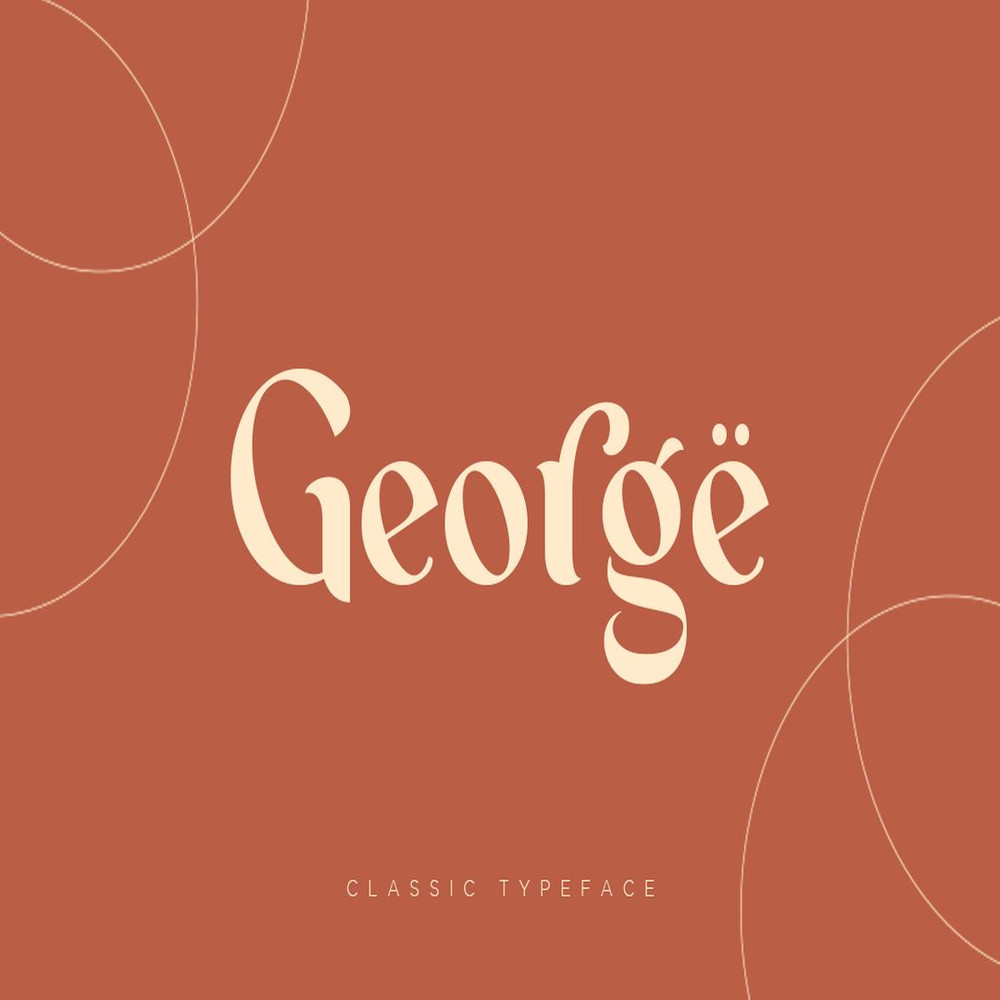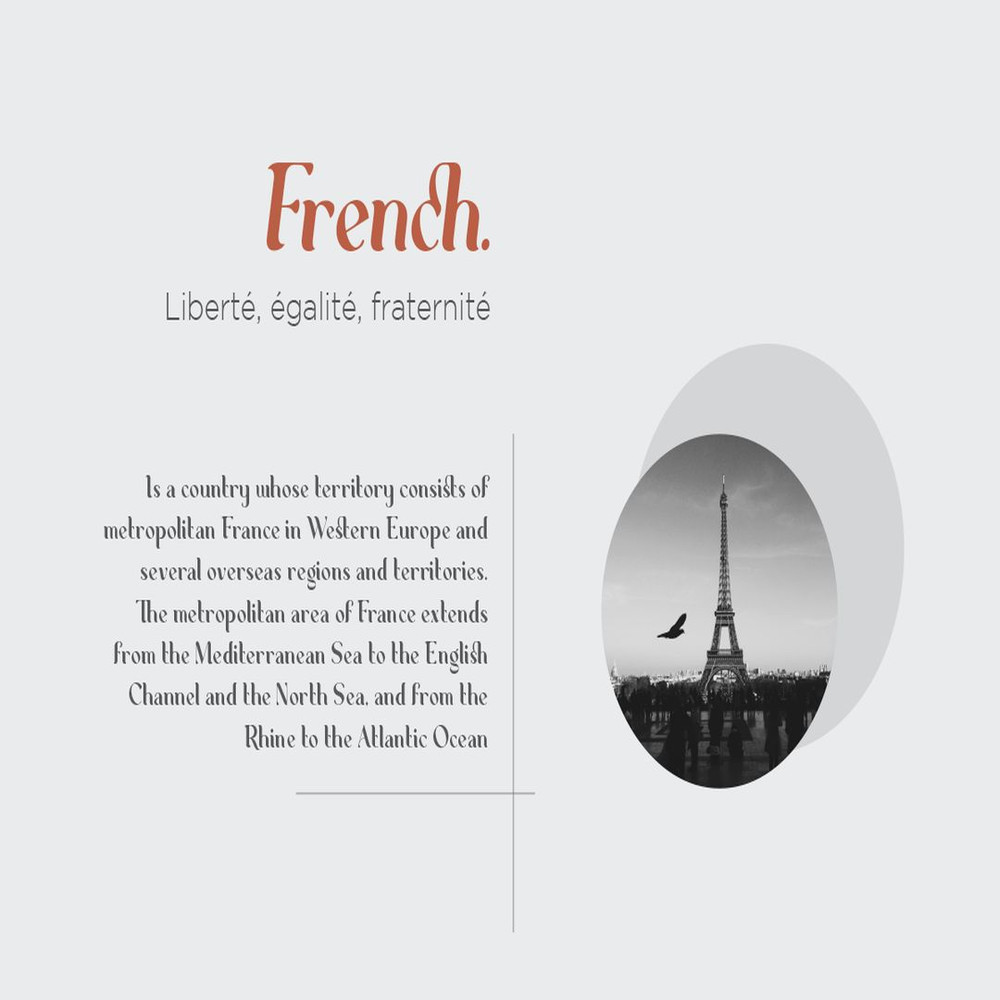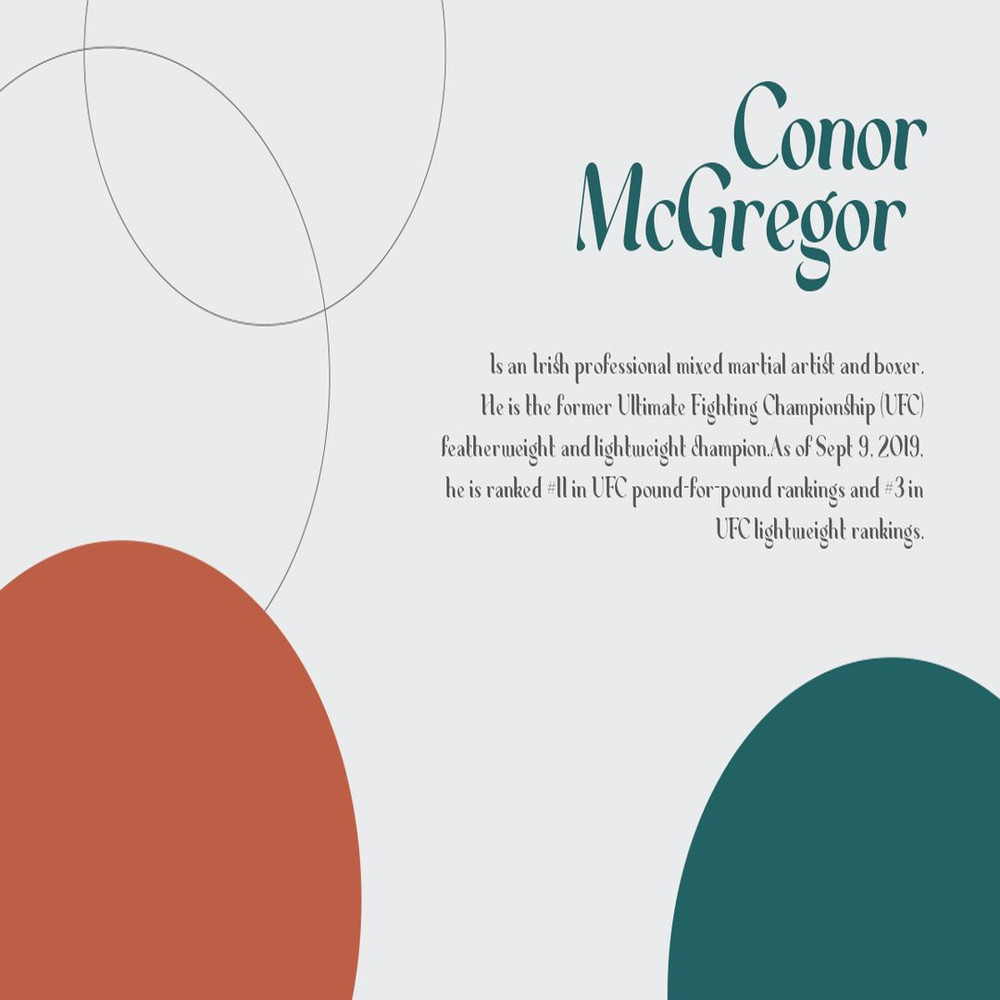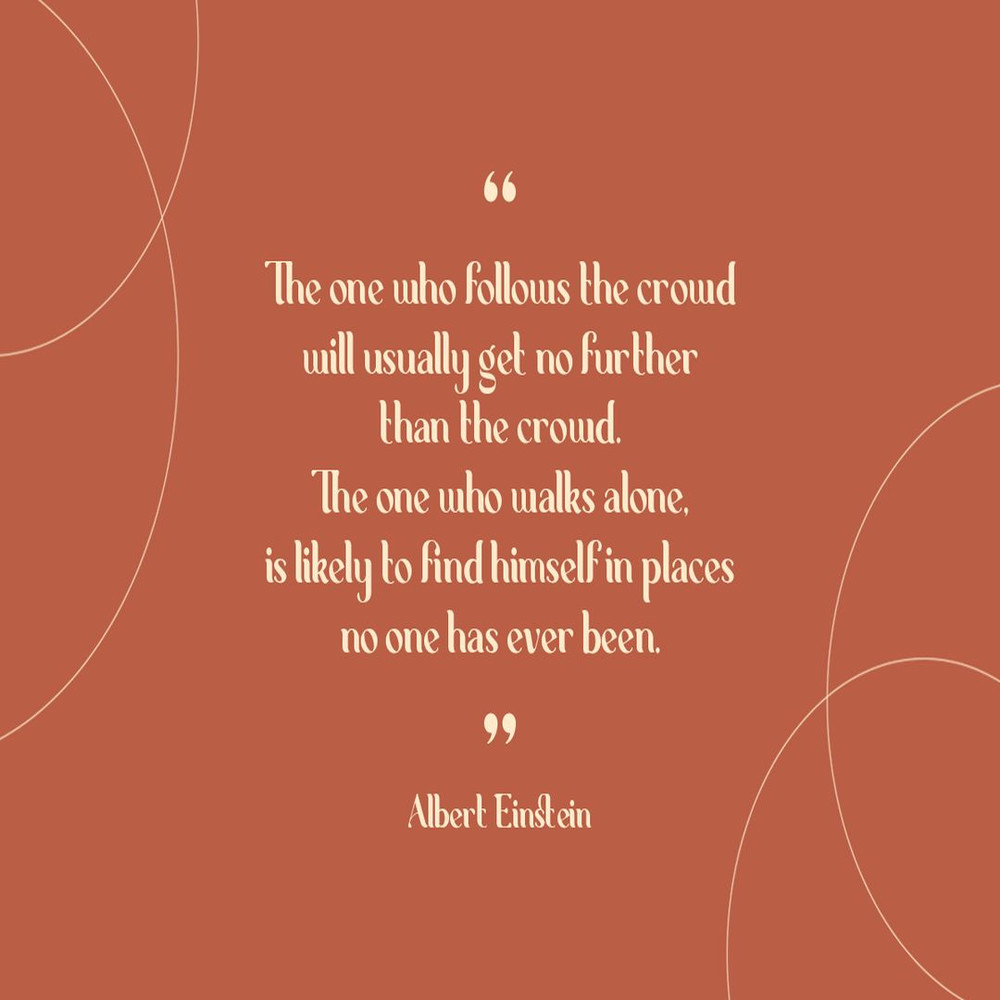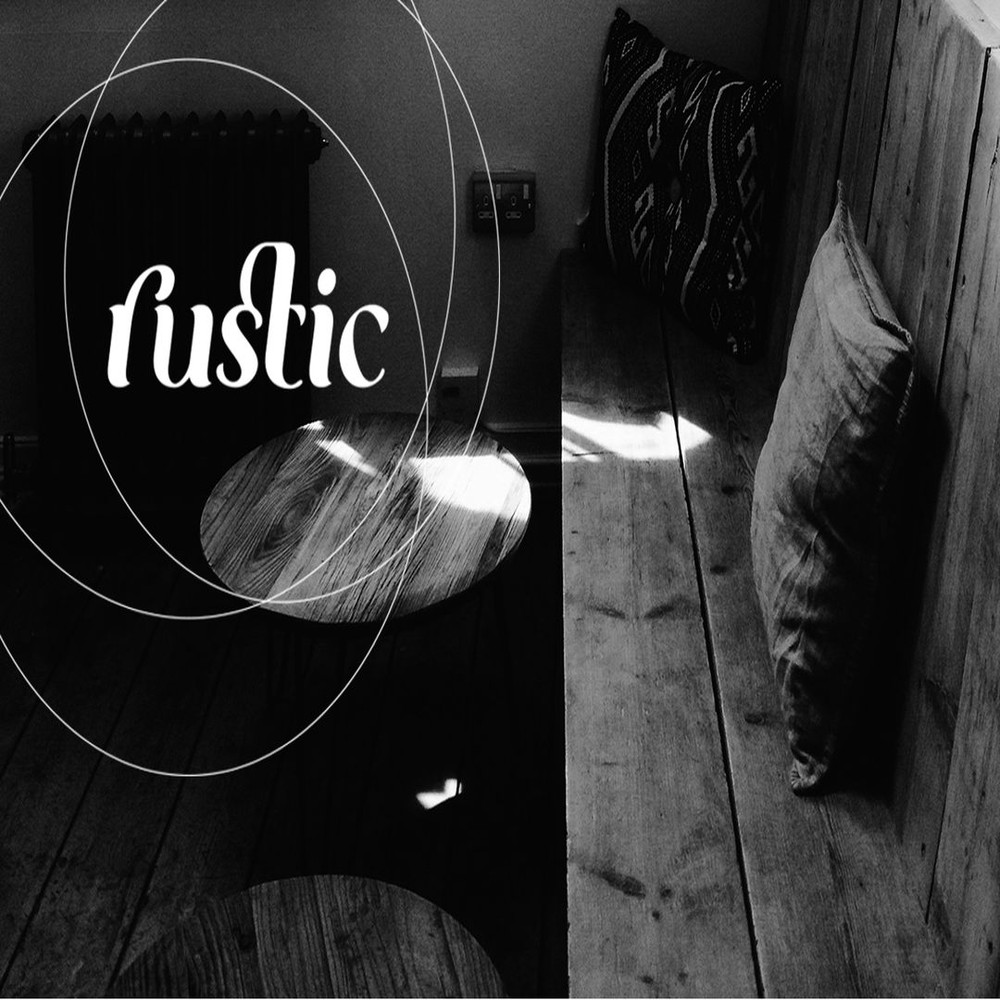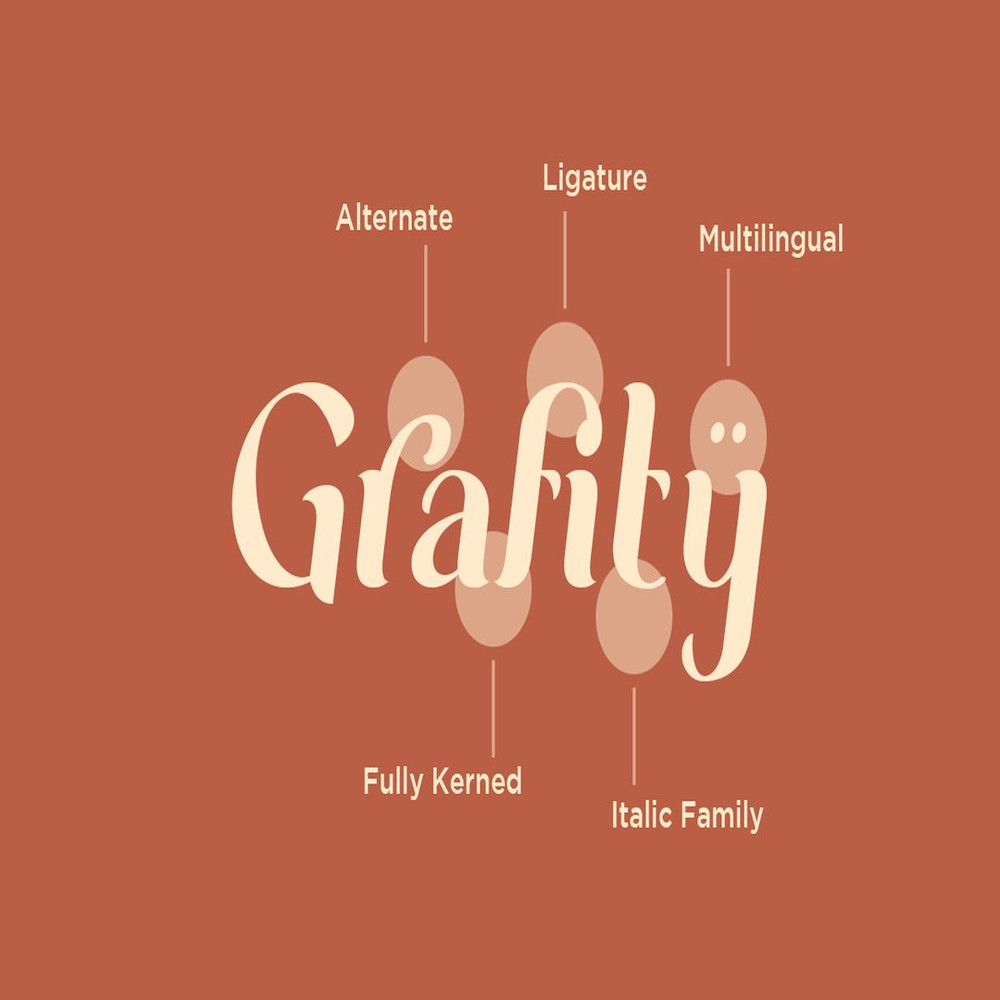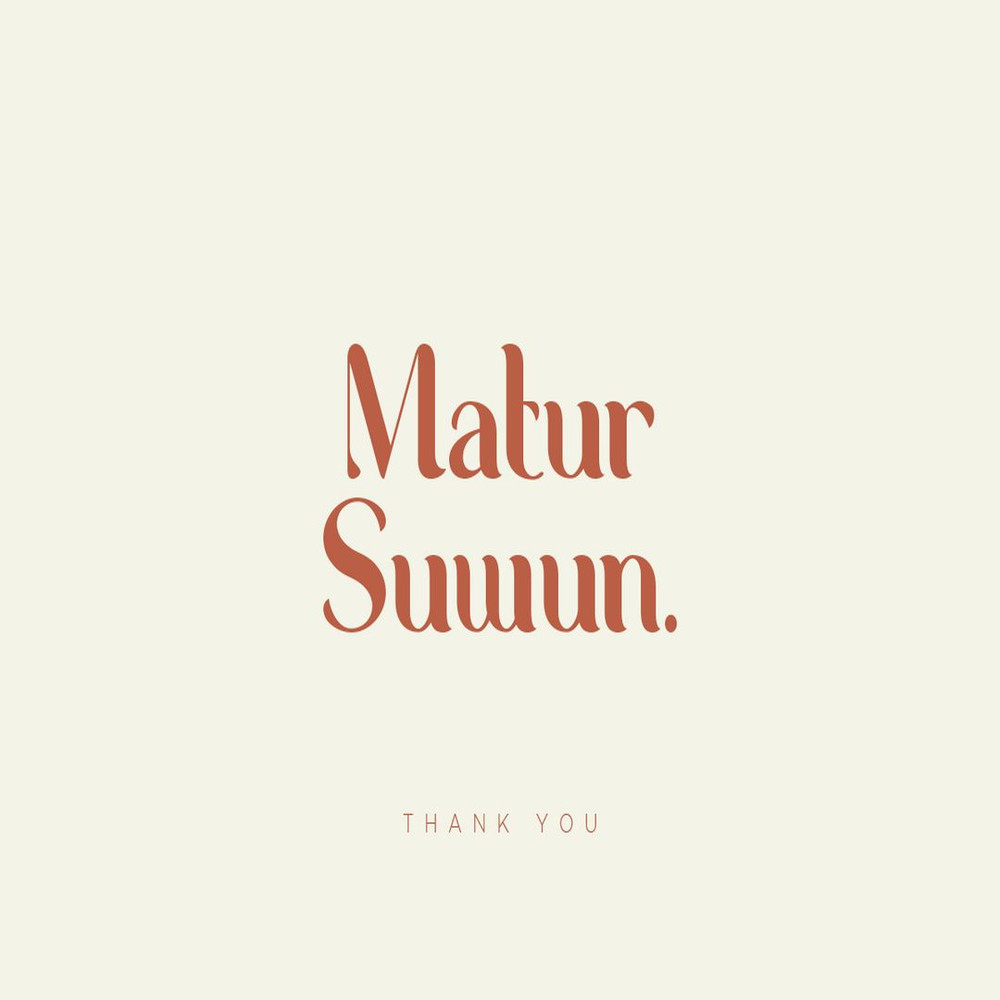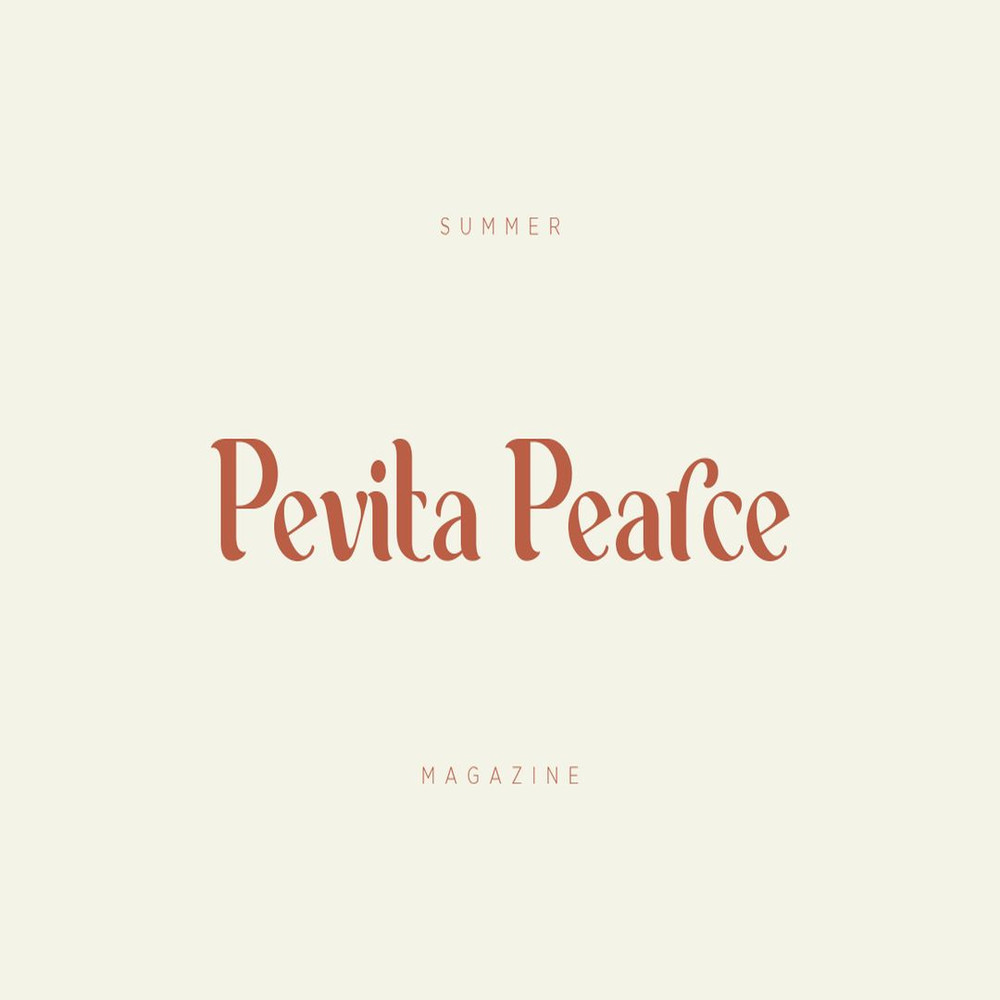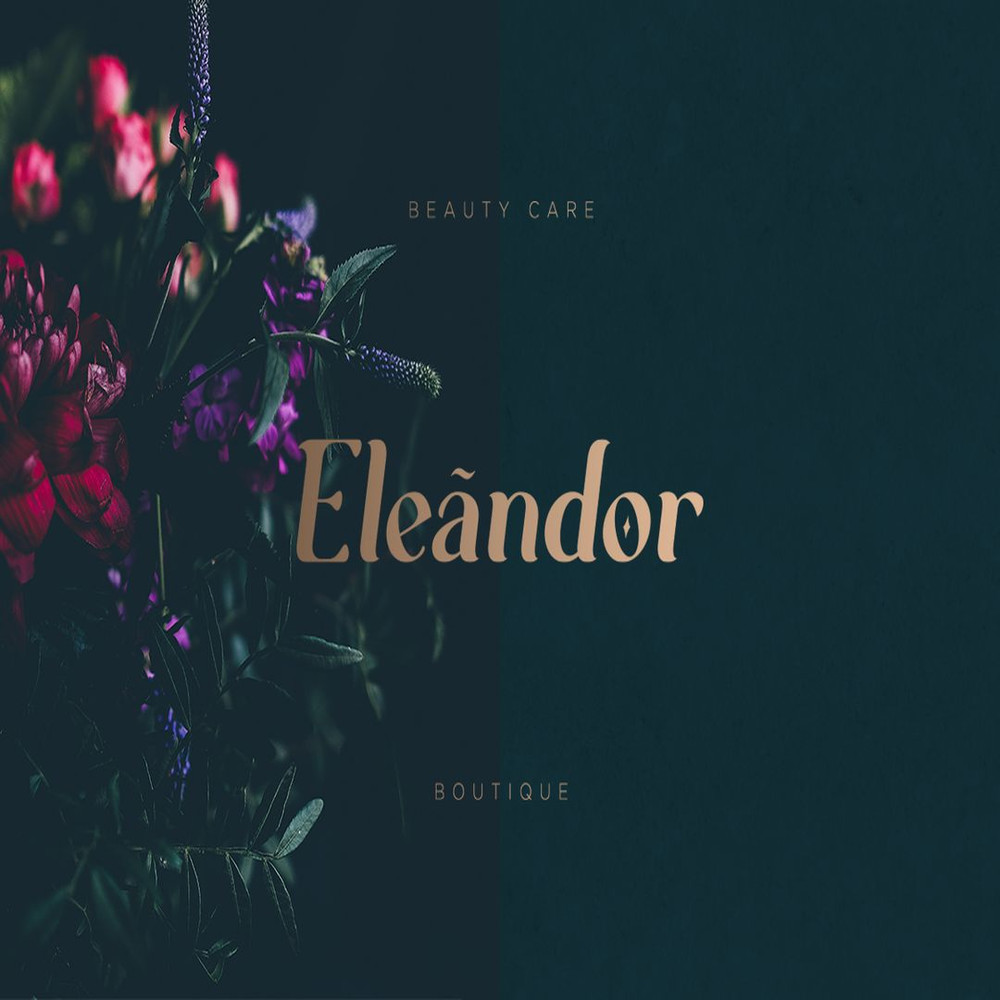
George – Classic Typeface Trending Fonts - Digital Font
George is a classic serif typeface. Create bold, gorgeous headlines and elegant designs with a vintage flair. George’s contrasting lines and curved terminals give a sleek, elegant look to logos, holiday cards, wedding invitations, quotes, advertisements, and more.
George has full set of classic uppercase and lowercase letters, numerals, punctuation, also multilingual symbols. It included opentype features like ligature, alternate and many others.
– All Multilingual symbol
– Opentype features ( ligature, alternate )
Multilingual character supports : (Afrikaans, Albanian, Catalan, Croatian, Czech, Danish, Dutch, English, Estonian, Finnish, French, German, Hungarian, Icelandic, Italian, Lithuanian, Maltese, Norwegian, Polish, Portuguese, Slovenian, Spanish, Swedish, Turkish, Zulu)